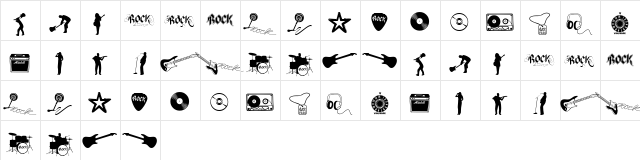
Rock Star 2.0 Regular
Design Context for Rock Star 2.0 Typeface
Rock Star 2.0 is a composed and adaptable typeface that performs quietly and consistently across a wide range of design contexts.